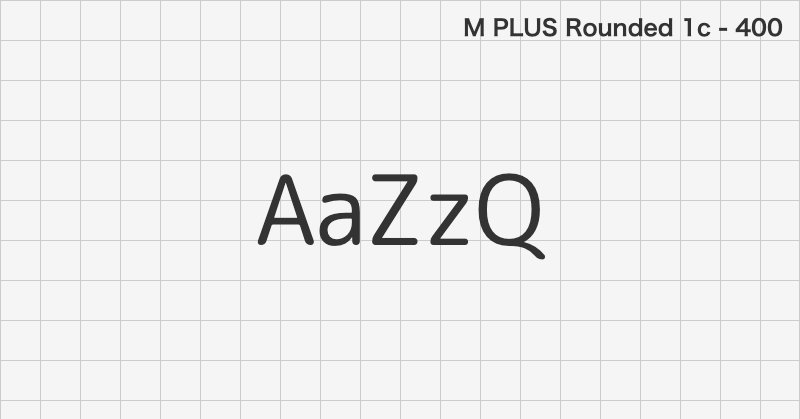
M PLUS Rounded 1c is a superfamily of fonts characterized by its rounded forms and versatility. It includes various styles that cater to both Latin and Japanese scripts, providing a friendly appearance.
Supports Latin, Latin Extended, Japanese, Vietnamese, Cyrillic, Cyrillic Extended, Greek, Greek Extended and Hebrew, making it suitable for internationally oriented designs and text.
Available in Light, Regular and Bold weights, Suitable for various use cases, from explanatory text to body copy and headings.
M PLUS Rounded 1c was developed by Coji Morishita and the M+ Fonts Project, aiming to create a comprehensive typeface family that supports multiple languages and styles.